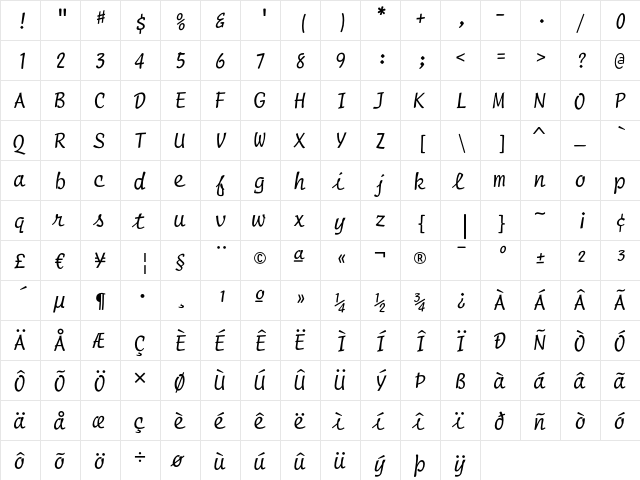
Script 12 Pitch Regular
Design Context for Script 12 Pitch Typeface
Script 12 Pitch brings a calligraphic fluidity to the page — its connecting strokes and expressive curves give it an unmistakably human quality.
Font Pairing: Combine Script 12 Pitch with a simple geometric sans for maximum contrast — the tension between flowing curves and clean structure is a classic typographic pairing.
Pro Tip: Use Script 12 Pitch for short runs of text — names, titles, or taglines. Extended body copy in script faces tires the eye quickly.